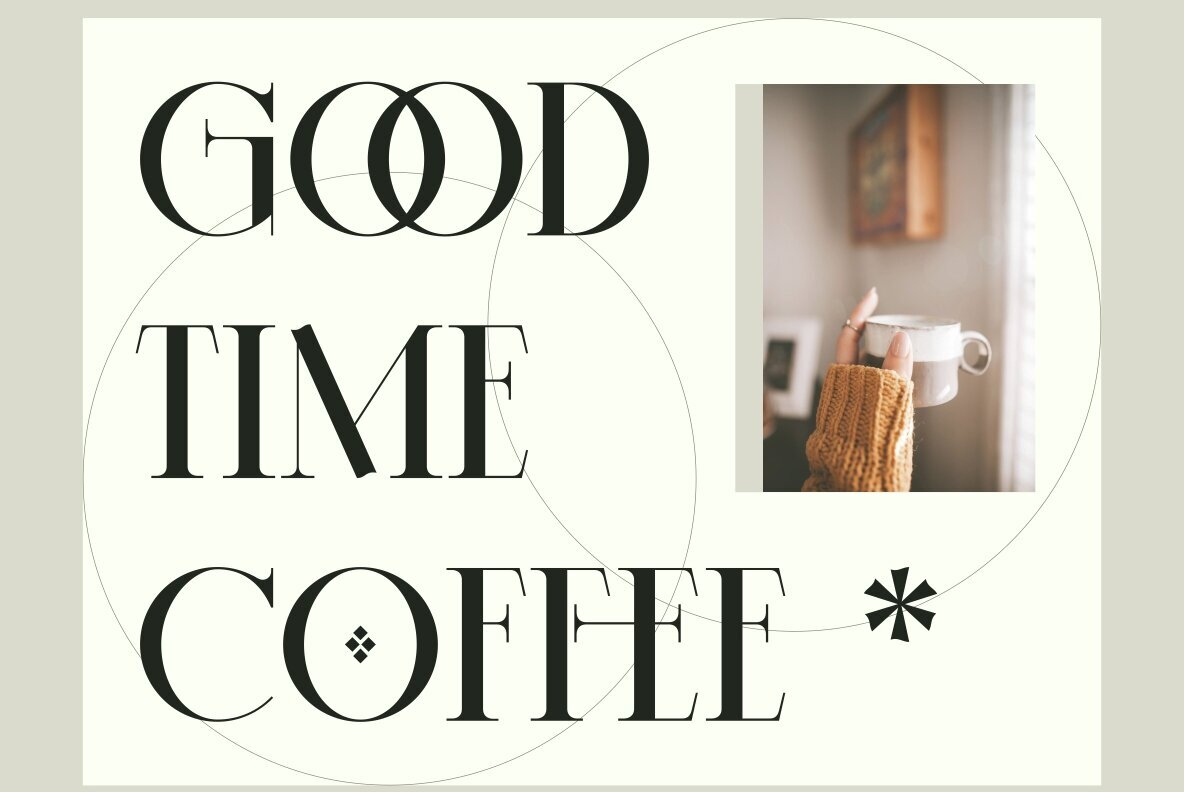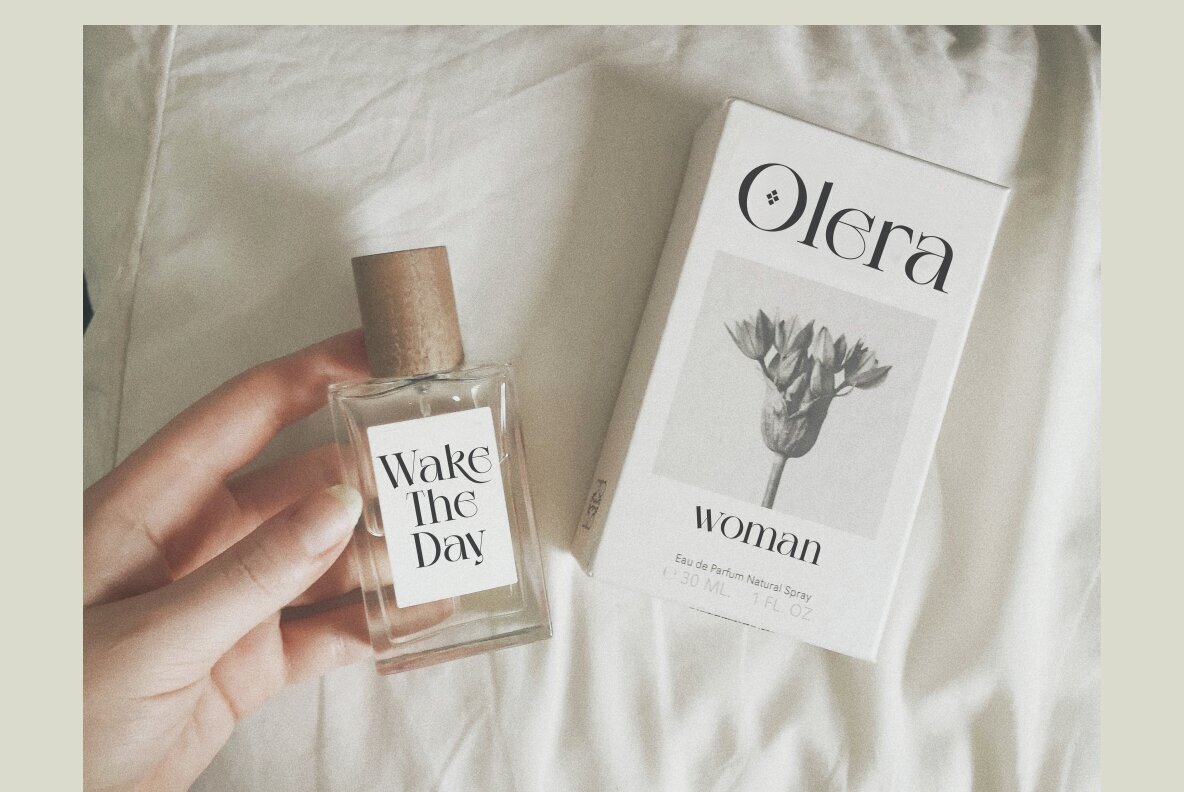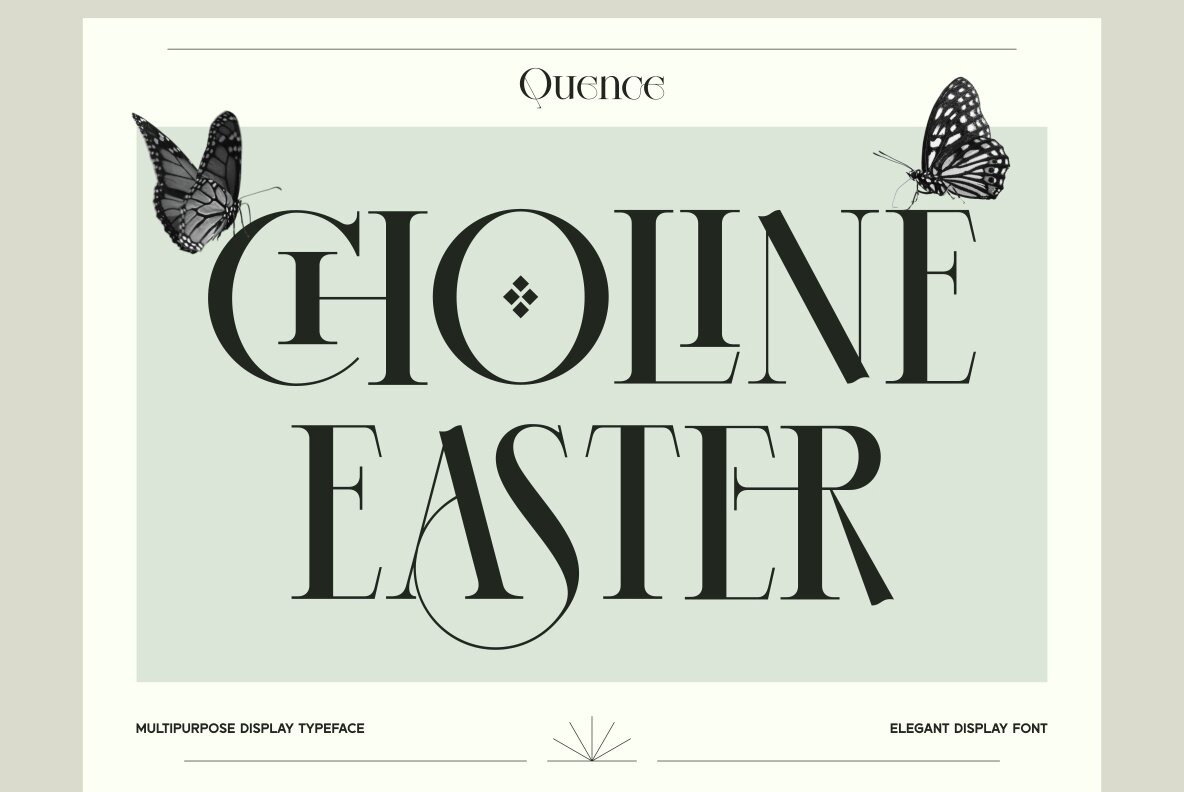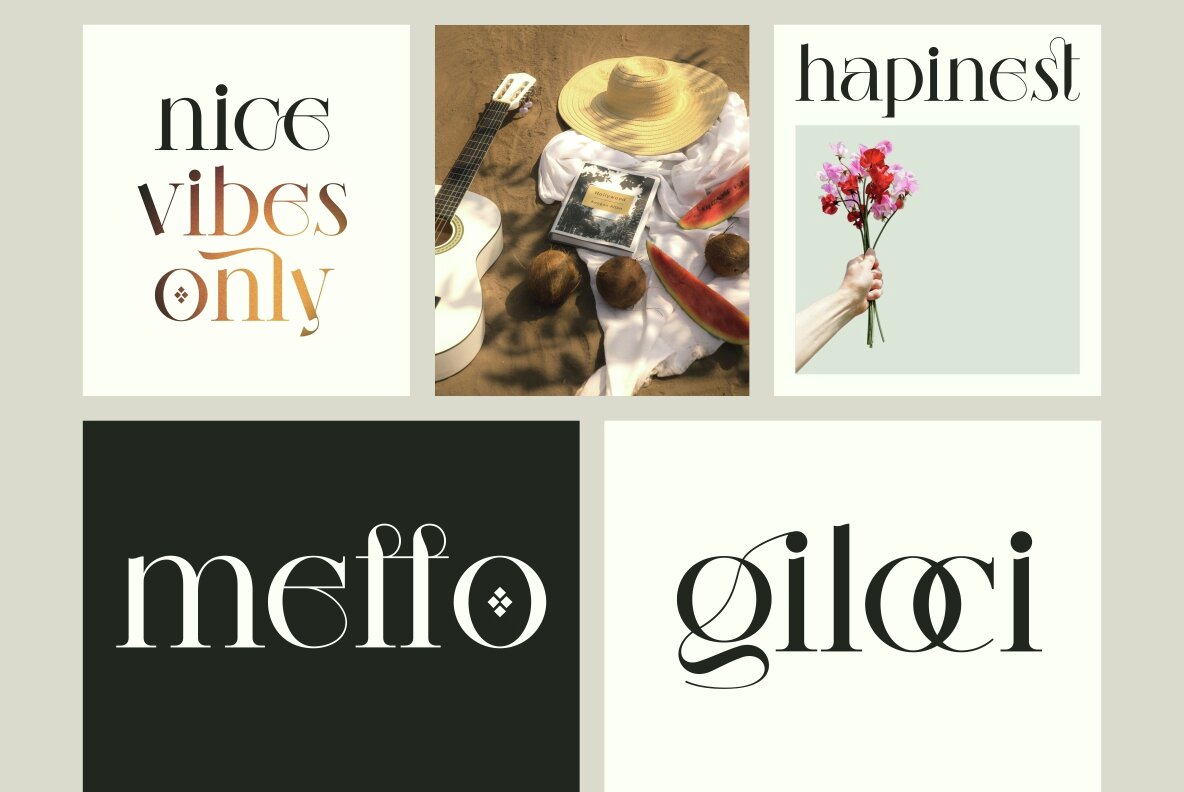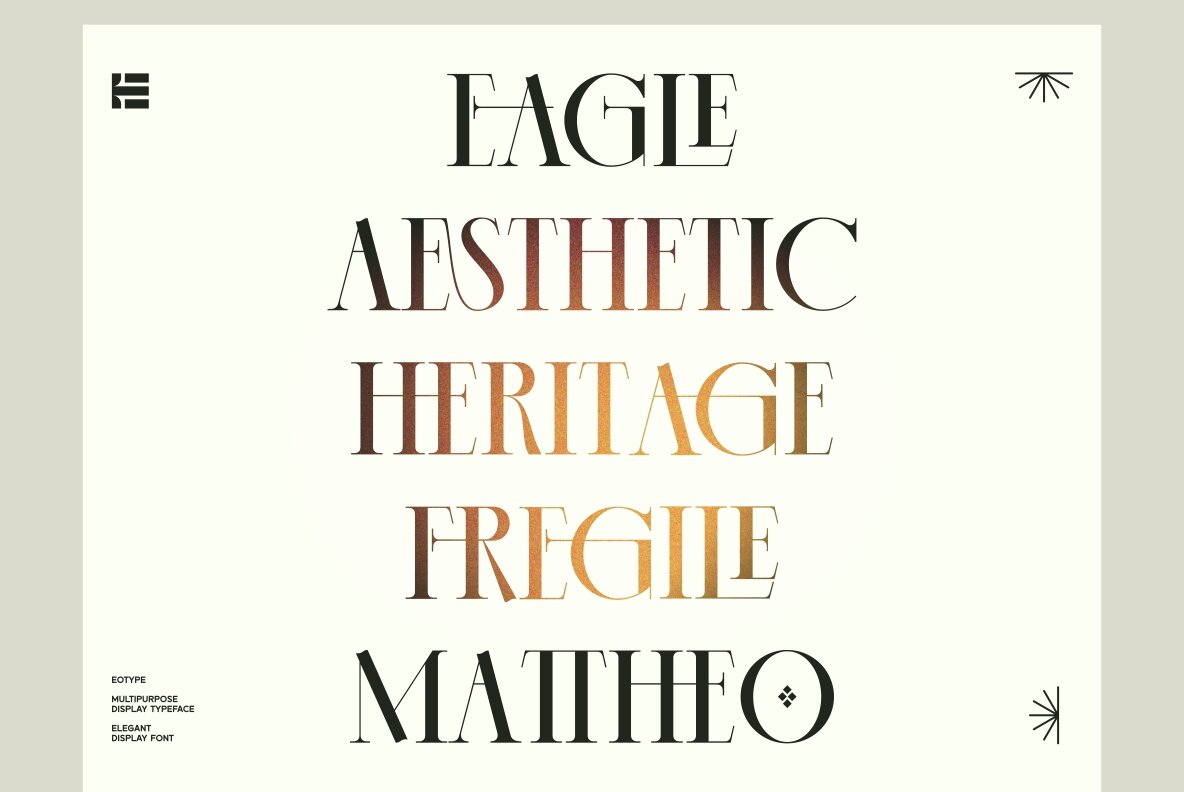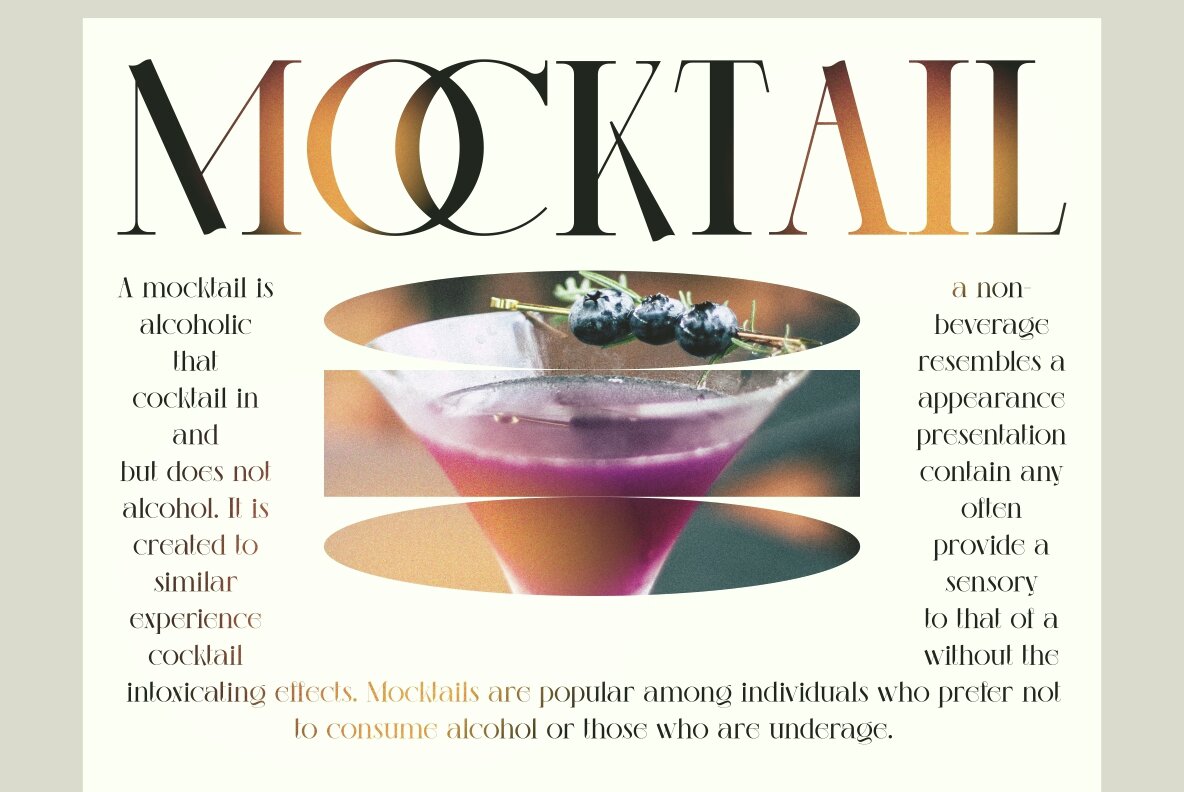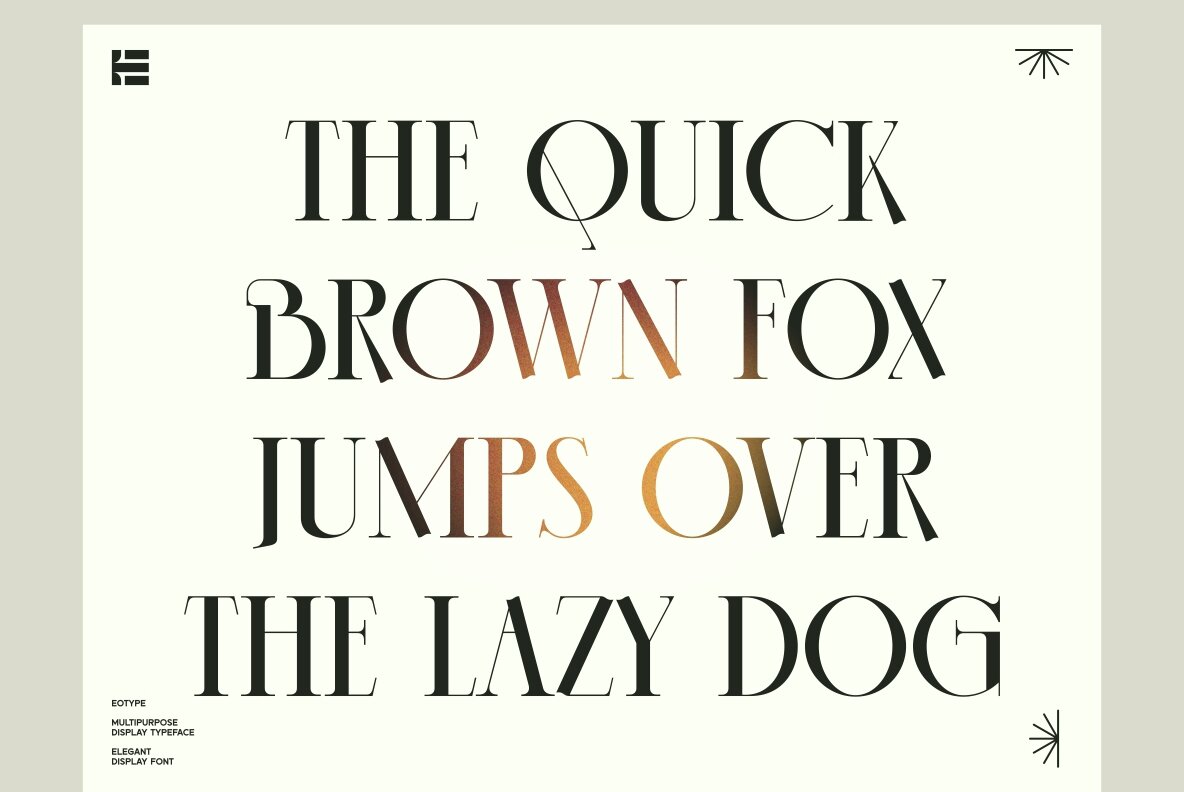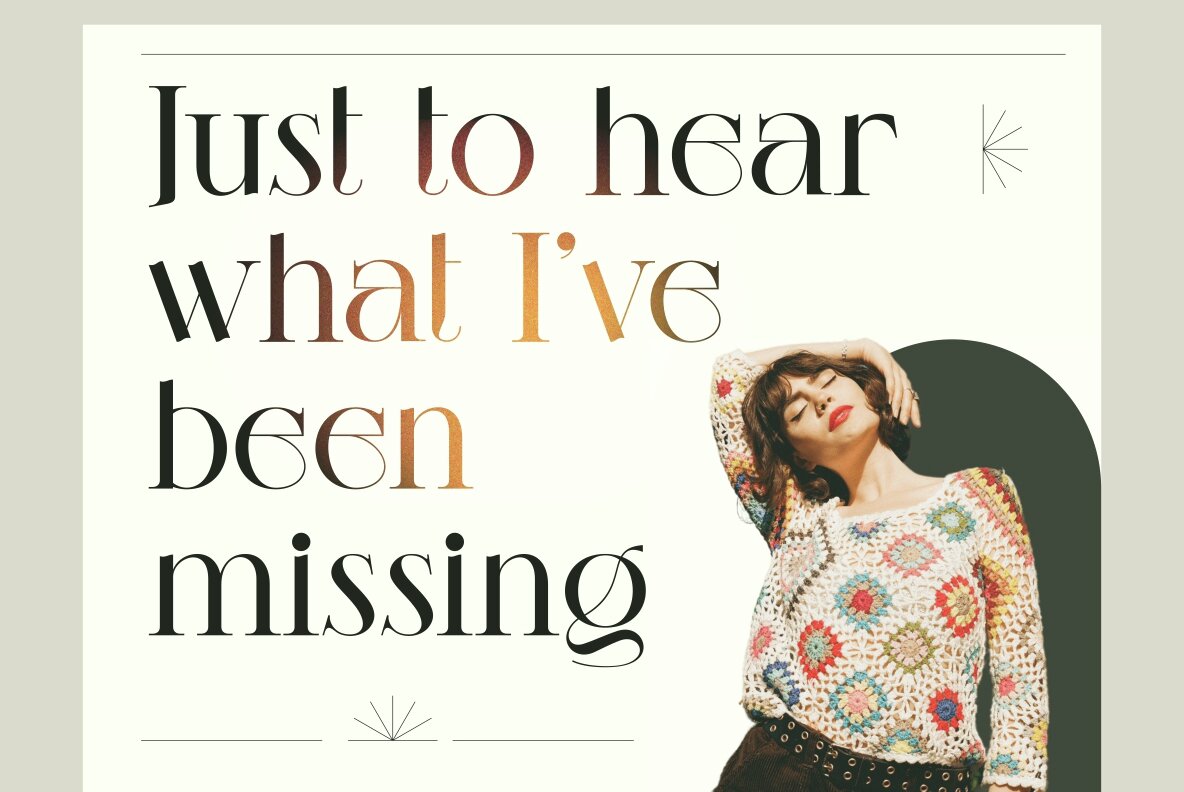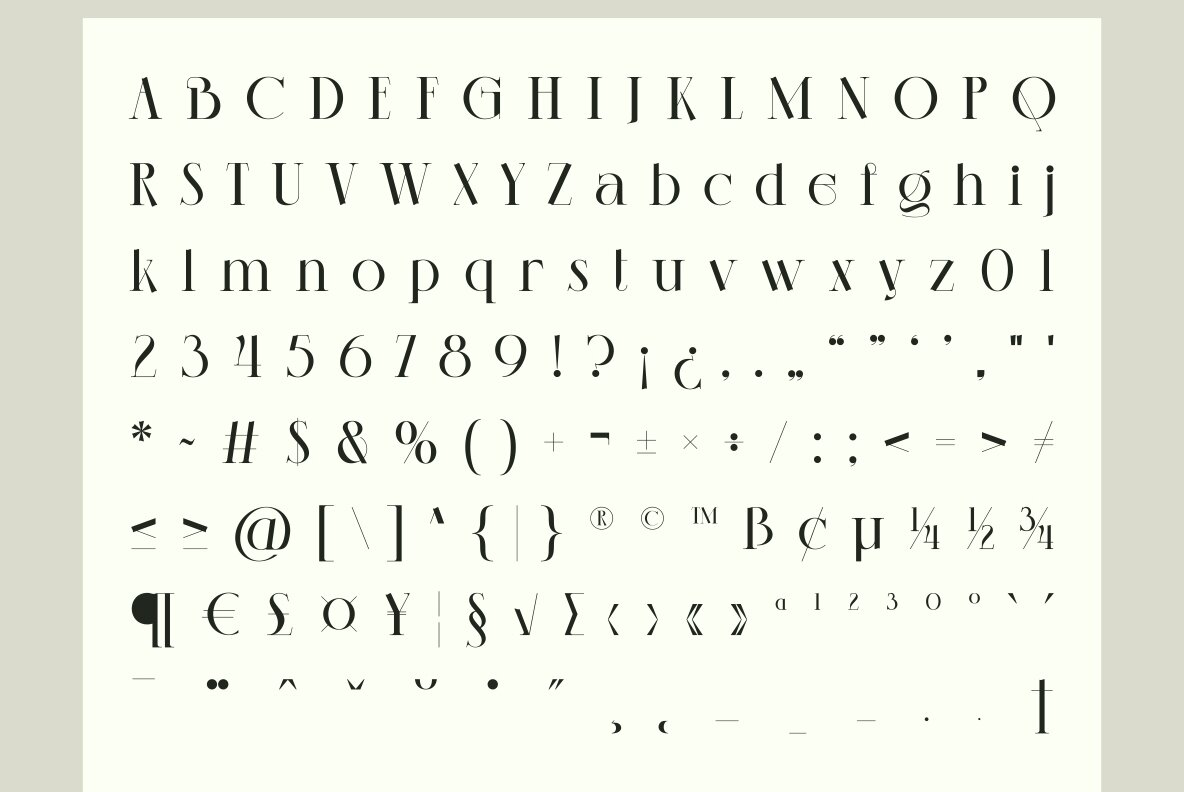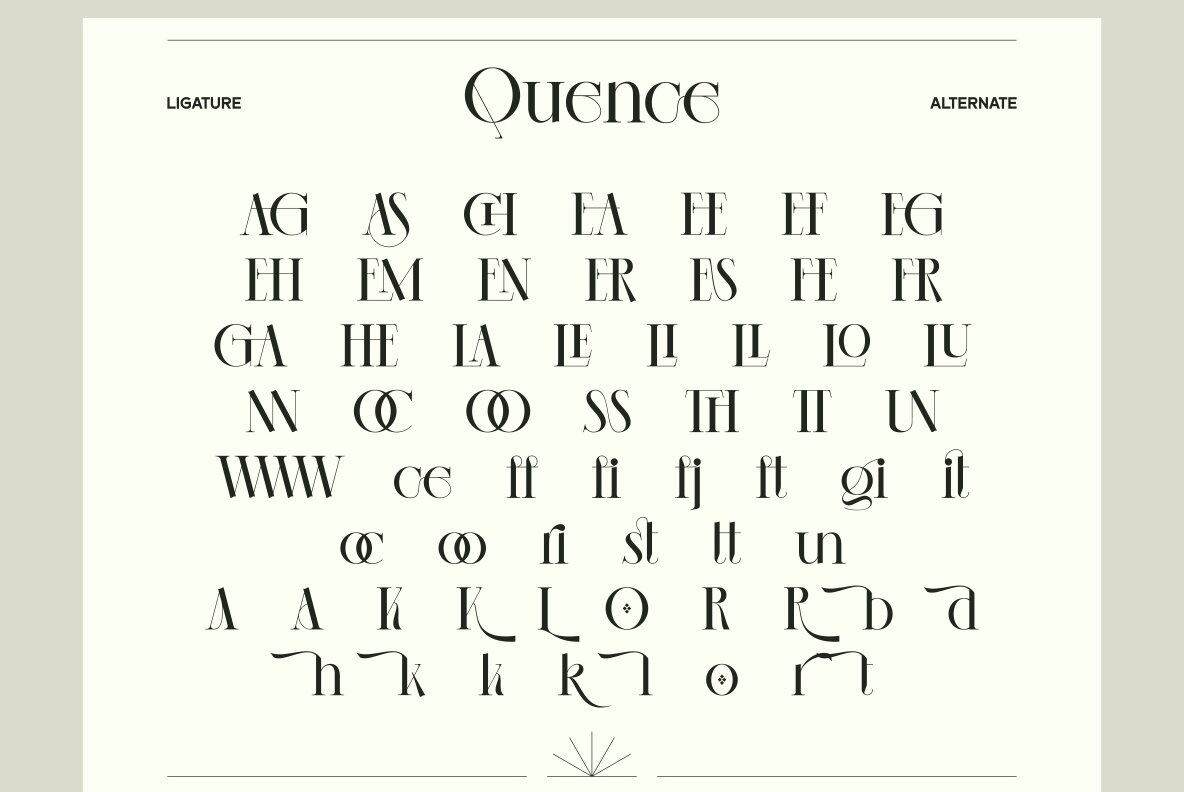
Quence Font
Quence Regular
Quence is serif decorative display font has a beautiful and aesthetic look. The Quence font provides a collection of glyphs with unique shapes. This font is suitable for modern vintage retro designs. You can use this font on posters, banners, logos, headline projects and more. This font features alternate, ligature and multilingual supports.